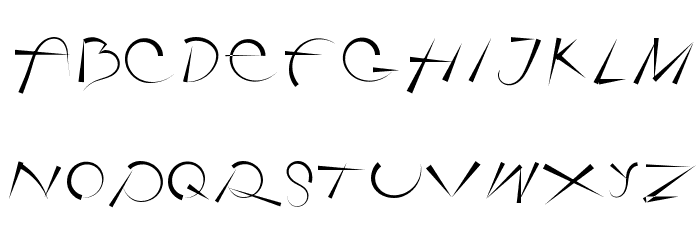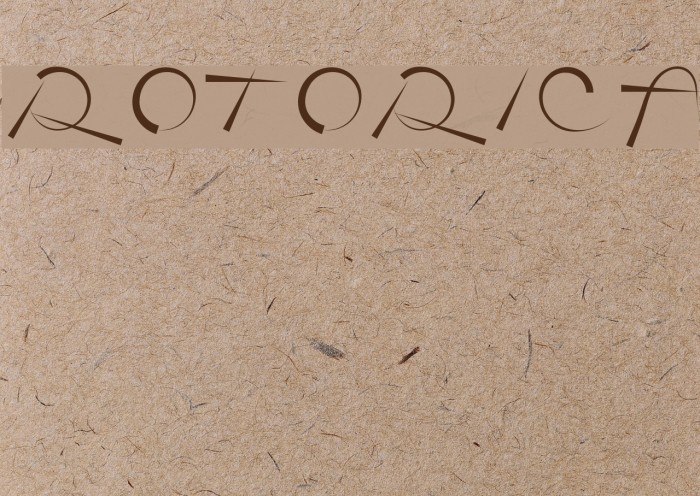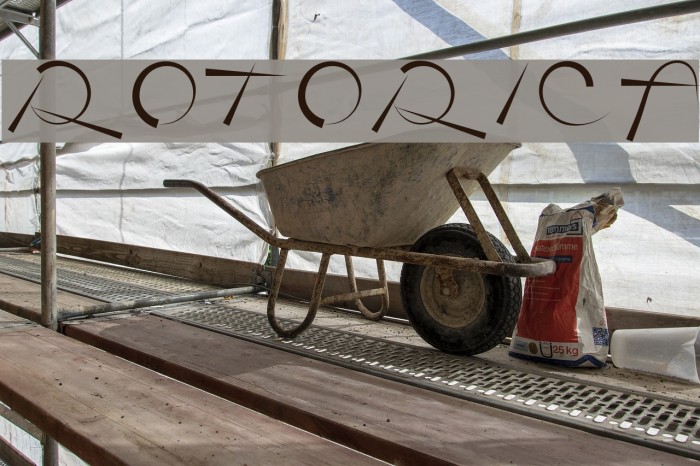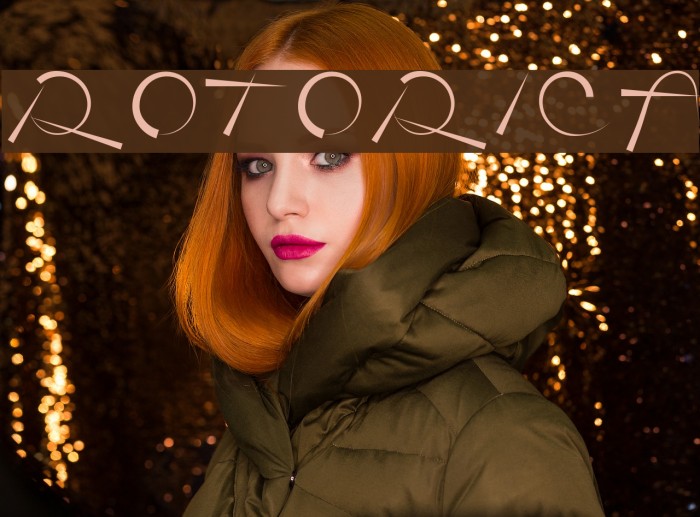
Rotorica Font
This font features a dynamic and futuristic design, characterized by sharp angles and smooth curves that create a sense of motion and energy. The uppercase letters exhibit a unique blend of geometric precision and artistic flair, with certain strokes extending beyond the baseline or cap height, adding an avant-garde touch. The lowercase letters maintain this aesthetic, offering a cohesive look across the typeface. The numerals are designed with a similar approach, ensuring consistency in style. Special characters are stylized to match the overall theme, making this font ideal for creative and modern applications.
A dynamic, futuristic font with sharp angles and smooth curves.
- Font: Rotorica
- Proposed Projects: Ideal for branding, sci-fi themed projects, modern posters, and digital media.